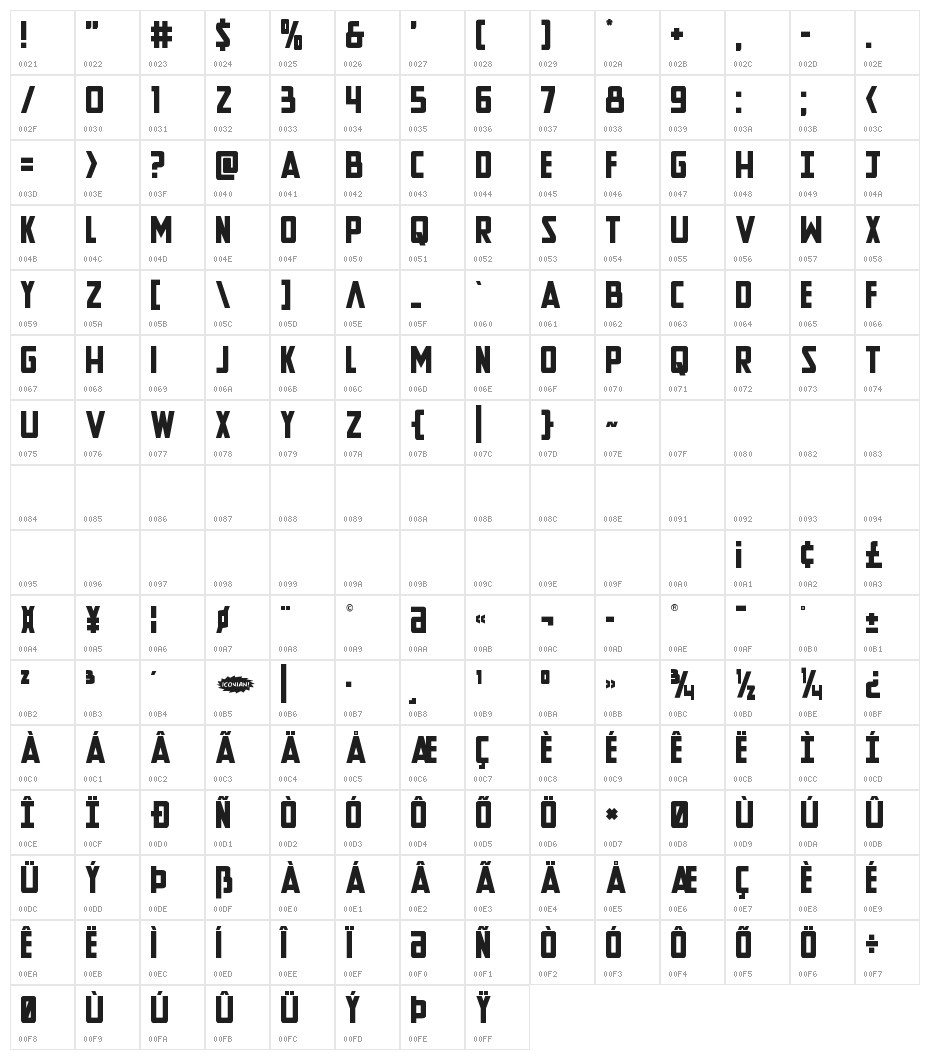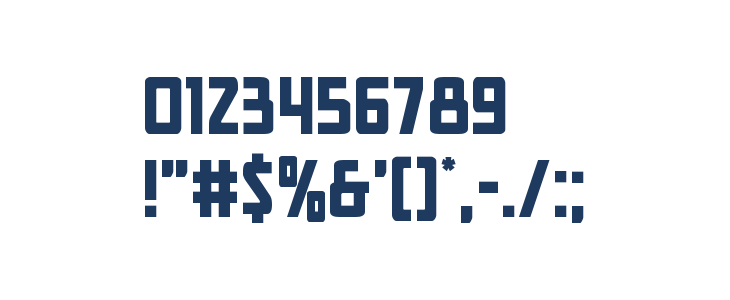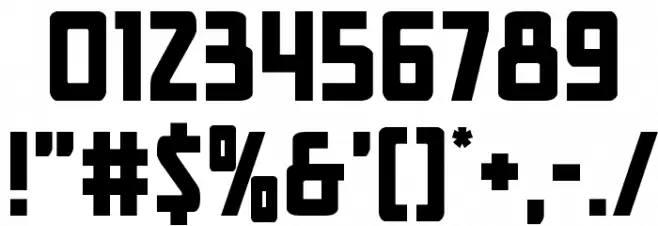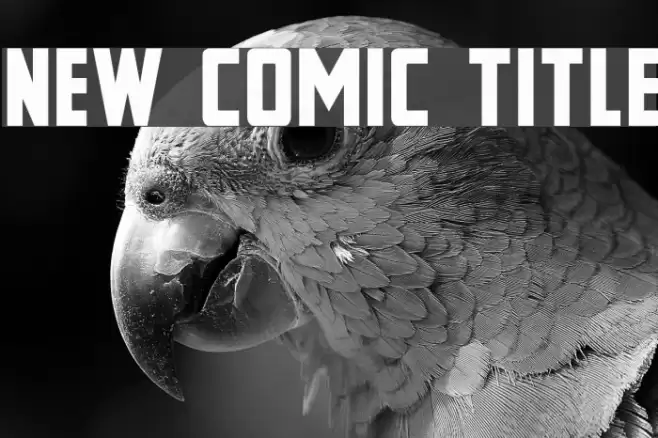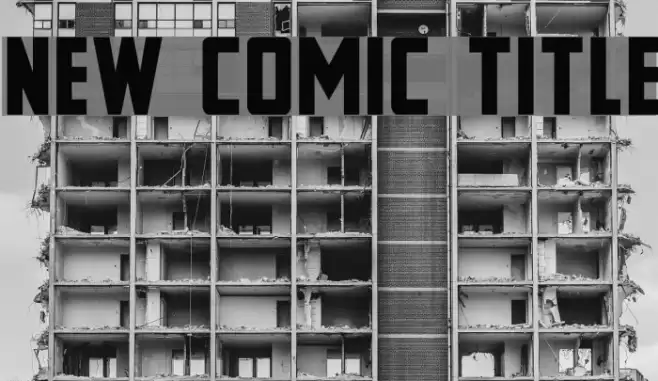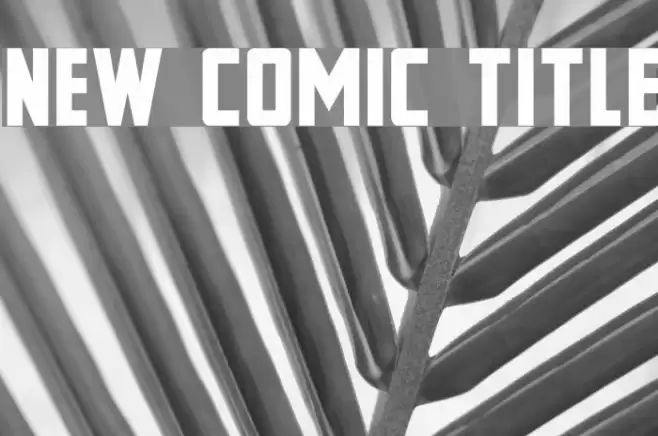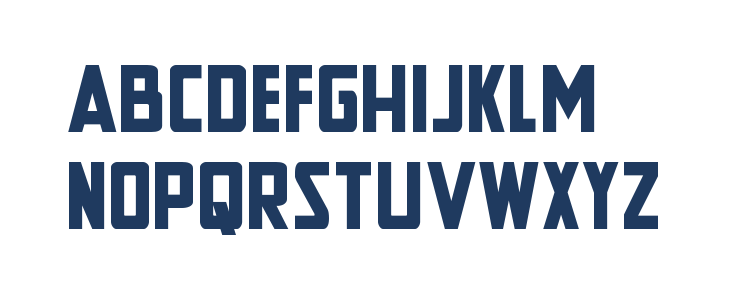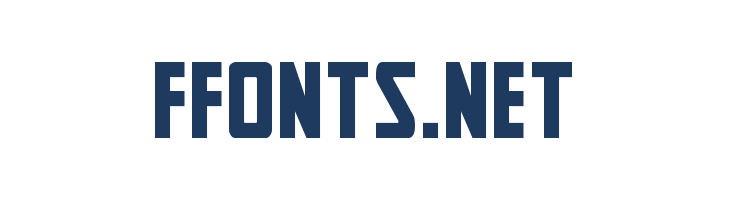
New Comic Title Font
New Comic Title Description
This font features a bold, geometric style with strong, angular lines and a modern aesthetic. The uppercase letters are uniform in height, creating a cohesive and structured appearance. The numbers and special characters maintain this bold, blocky design, ensuring consistency across all elements. The font's design is reminiscent of comic book titles, with a playful yet assertive presence. Its thick strokes and high contrast make it highly legible and impactful, suitable for attention-grabbing headlines or titles.